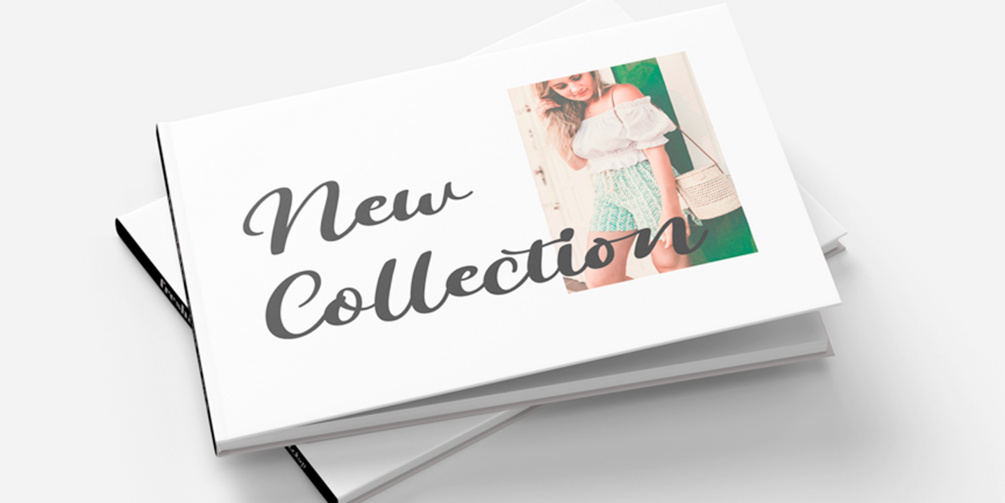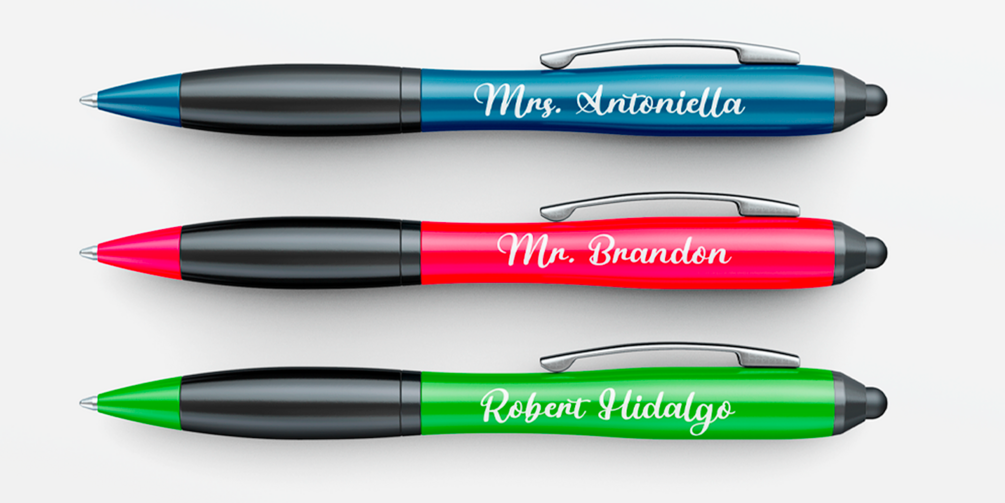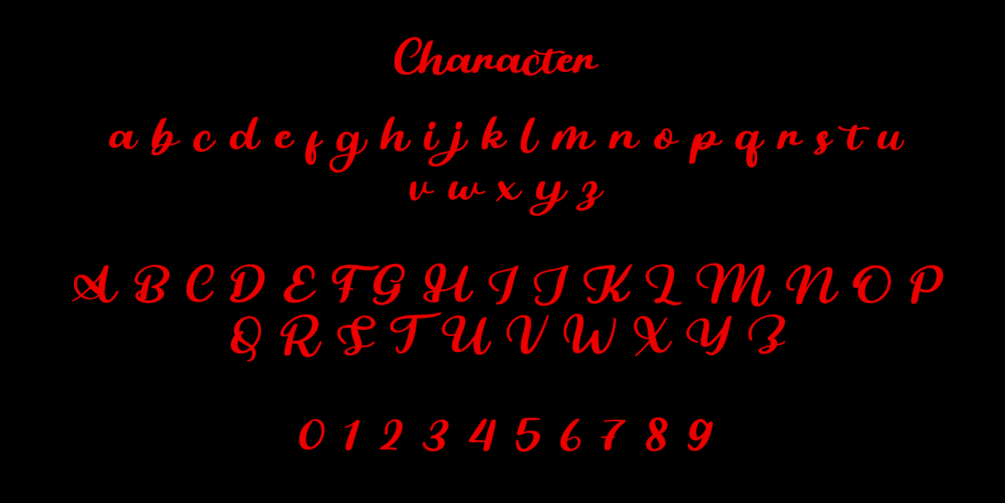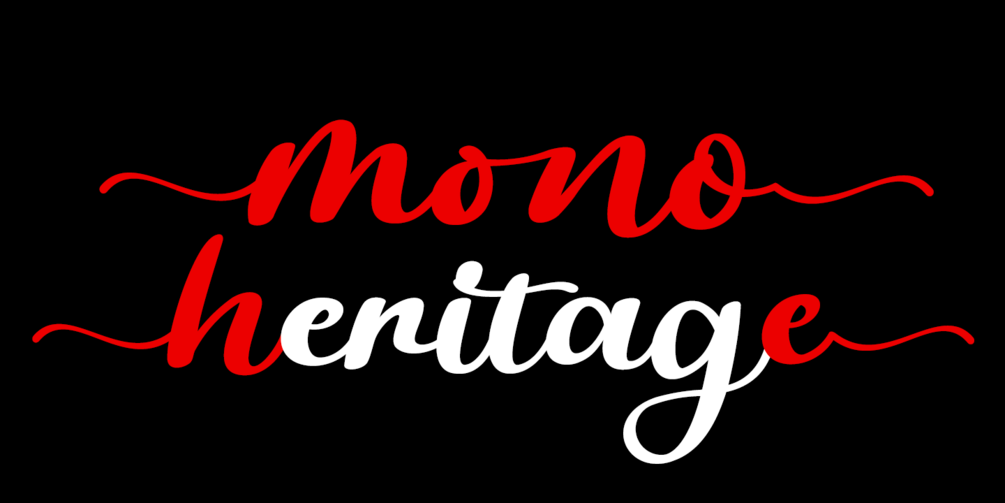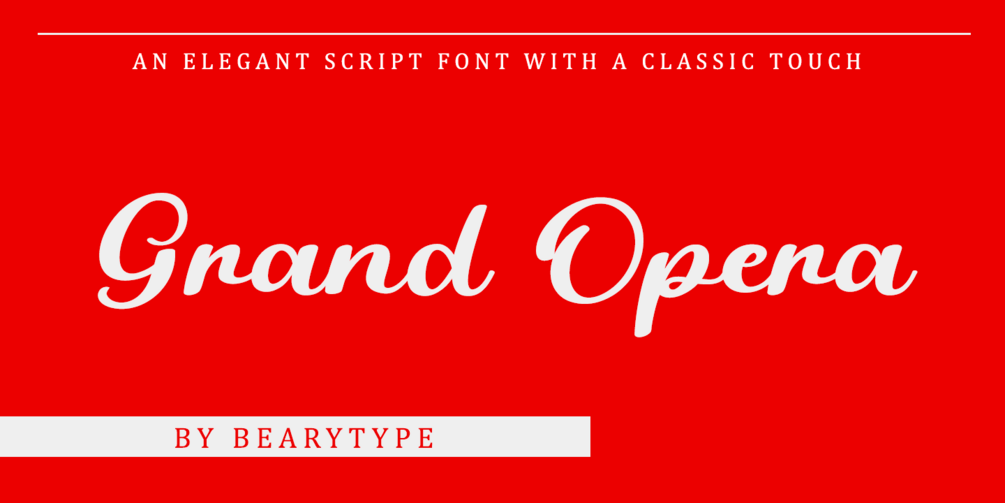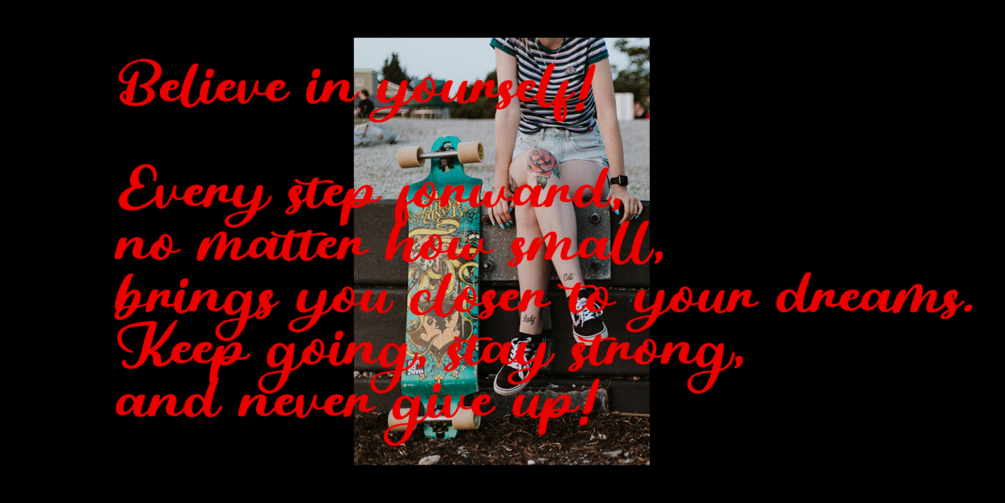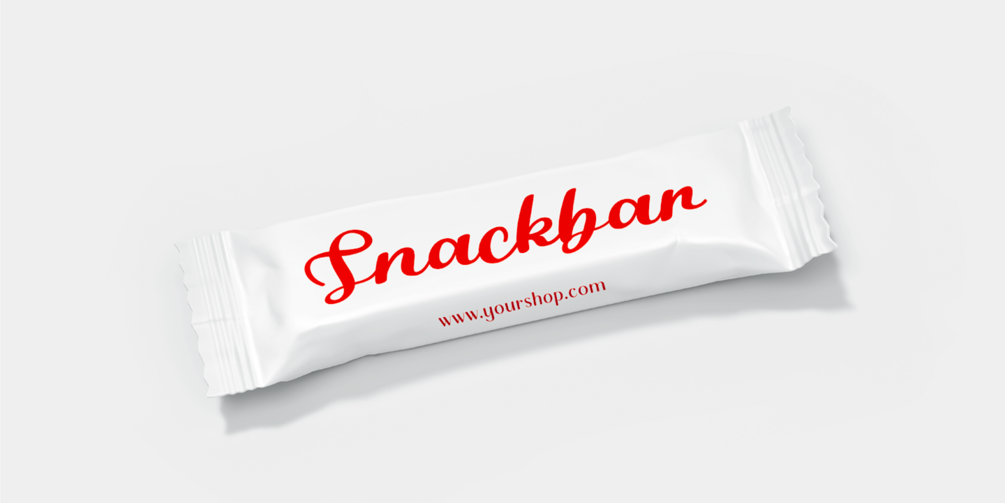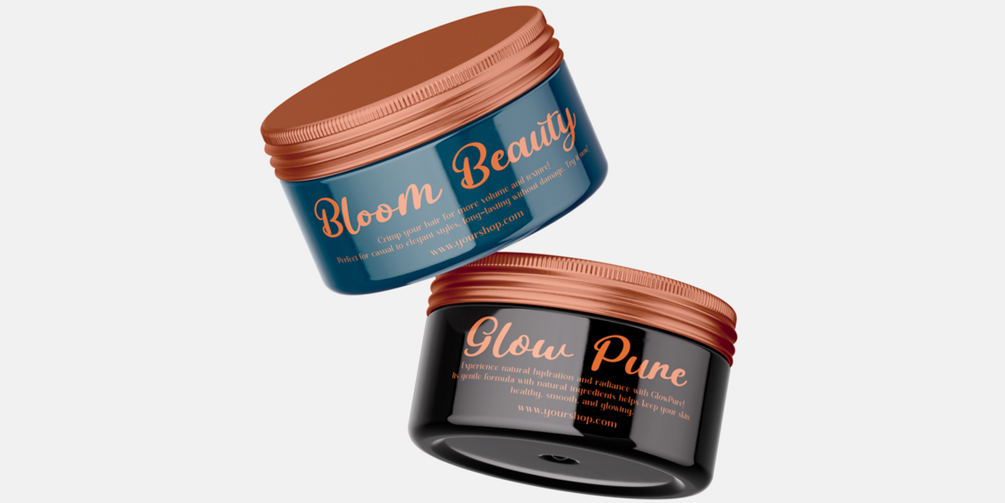
Grand Opera
Introducing Grand Opera – an elegant, handwritten font with a classic touch that exudes luxury and sophistication.
Grand Opera is the perfect font for creating refined designs that leave a lasting impression. Whether you're designing invitations, branding materials, or any project that demands elegance, this font will elevate your work with its graceful curves and timeless beauty.
This isn't just a typical script font – Grand Opera features intricate strokes and delicate variations, making each letter feel like an authentic handwritten creation. Its luxurious charm shines through in every curve and line, adding a truly personal touch to your designs.
✨ Elegant, handwritten script with a classic and refined aesthetic
✨ Alternate uppercase characters for special moments and refined looks
✨ Swash variants for each lowercase letter, allowing for extra flourishes and creativity
✨ Perfect for invitations, branding, luxury projects, and more
💎 Let Grand Opera add an air of elegance and refinement to your next design project.